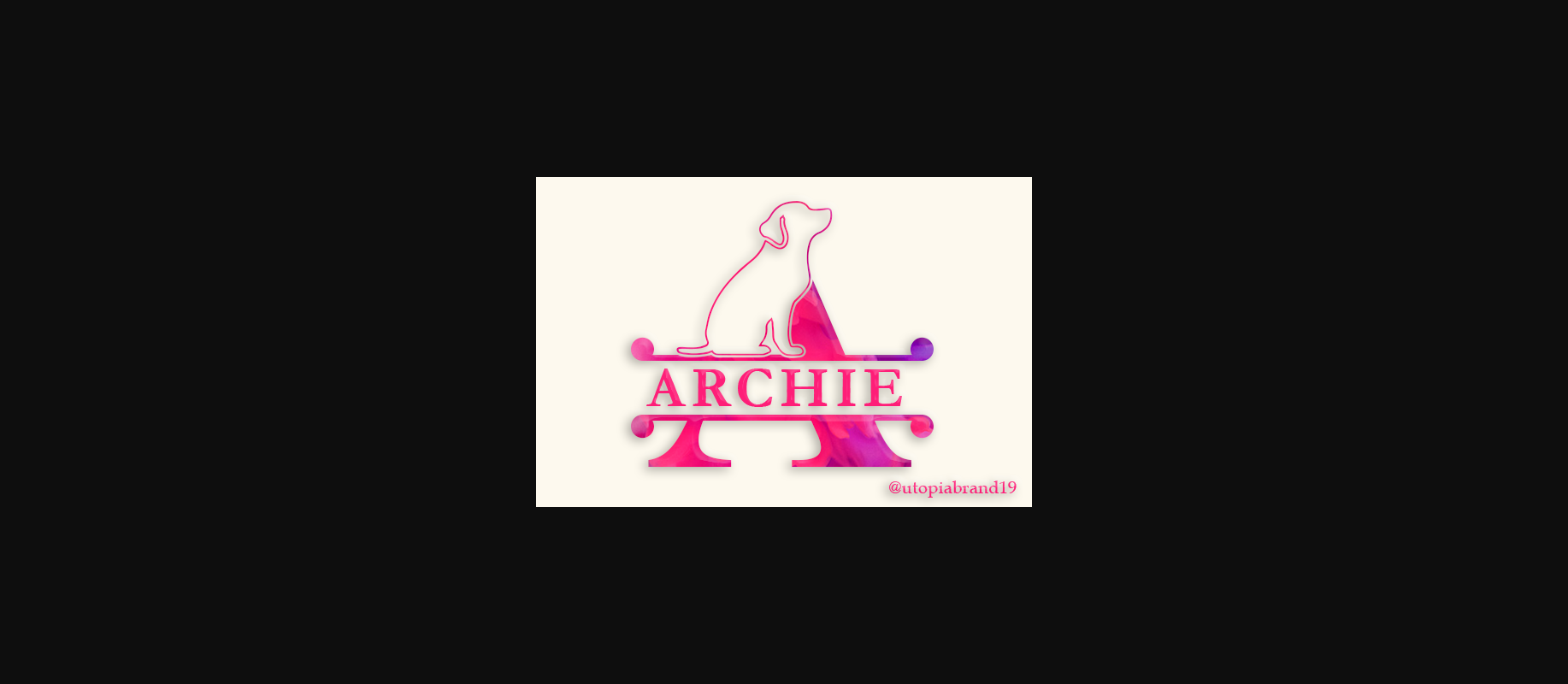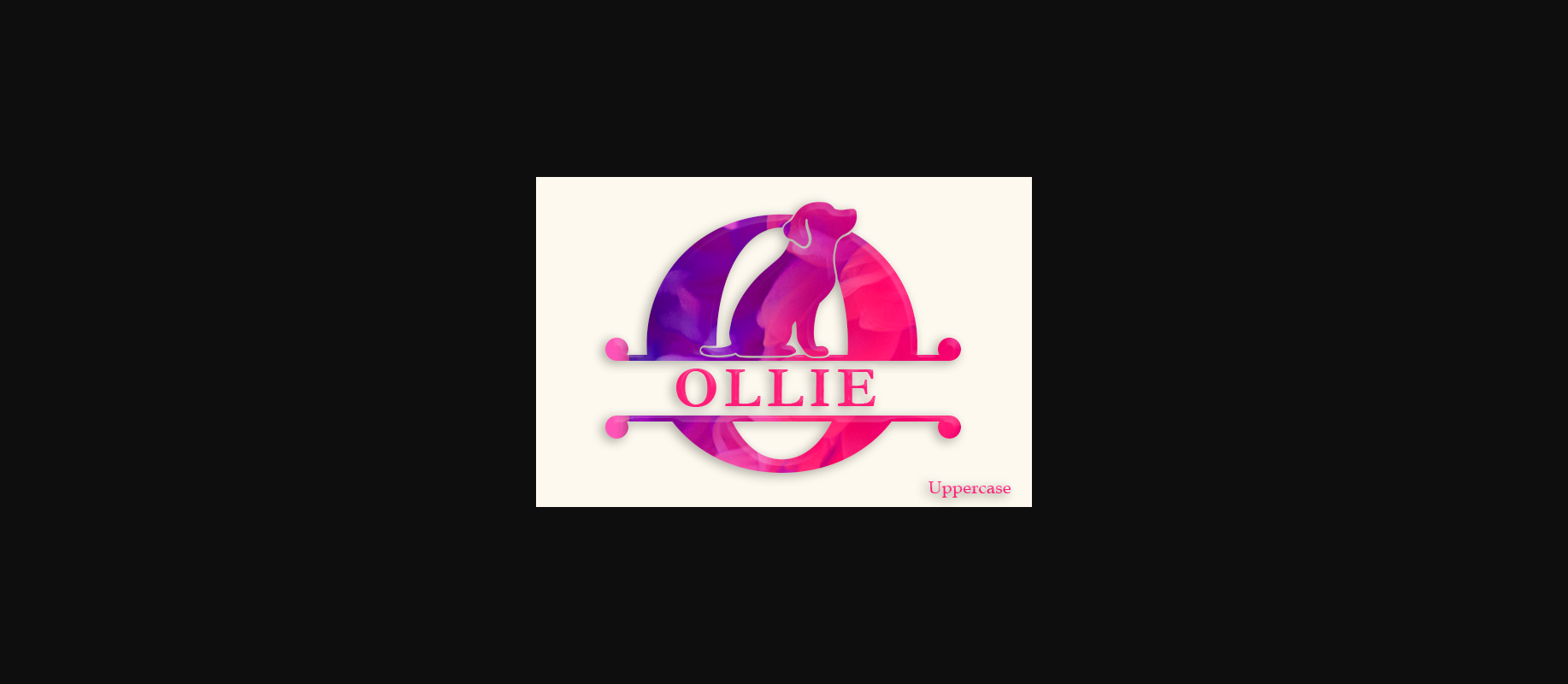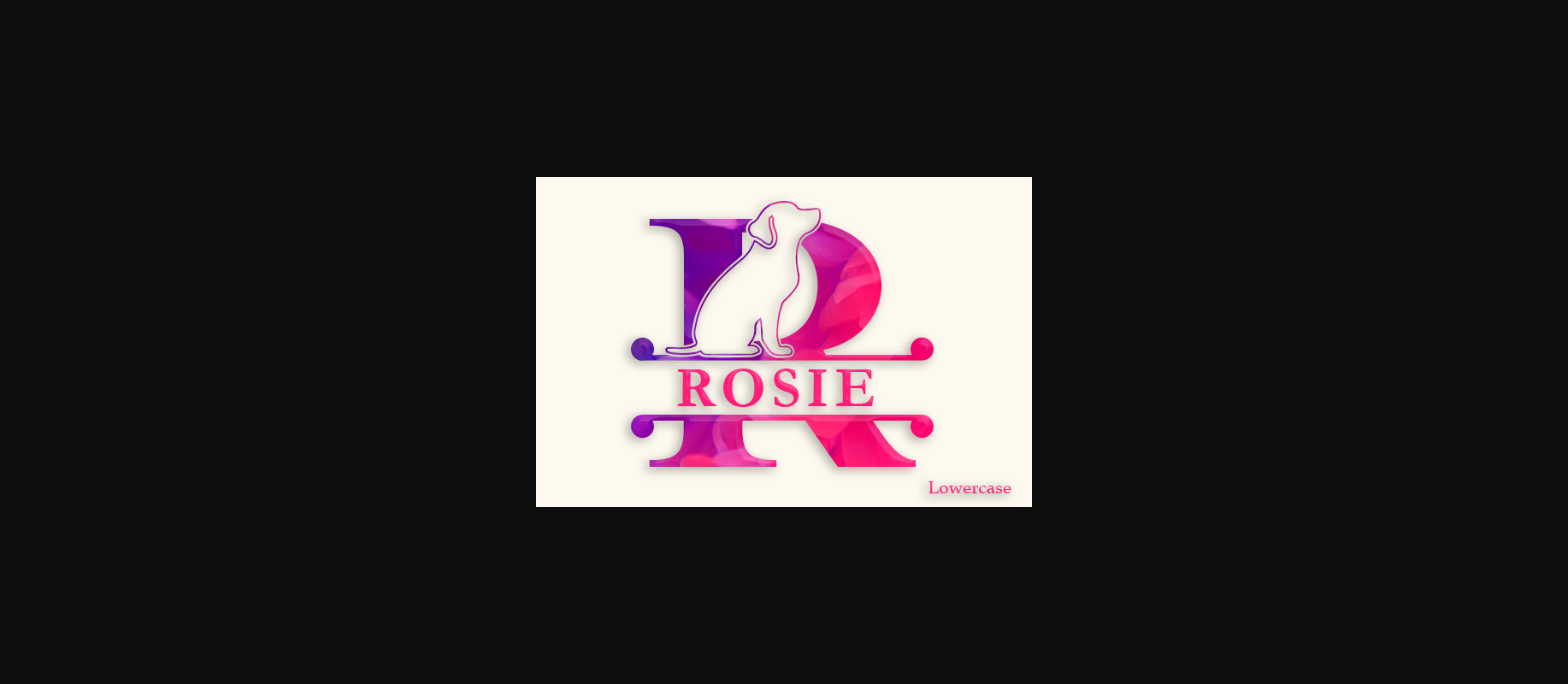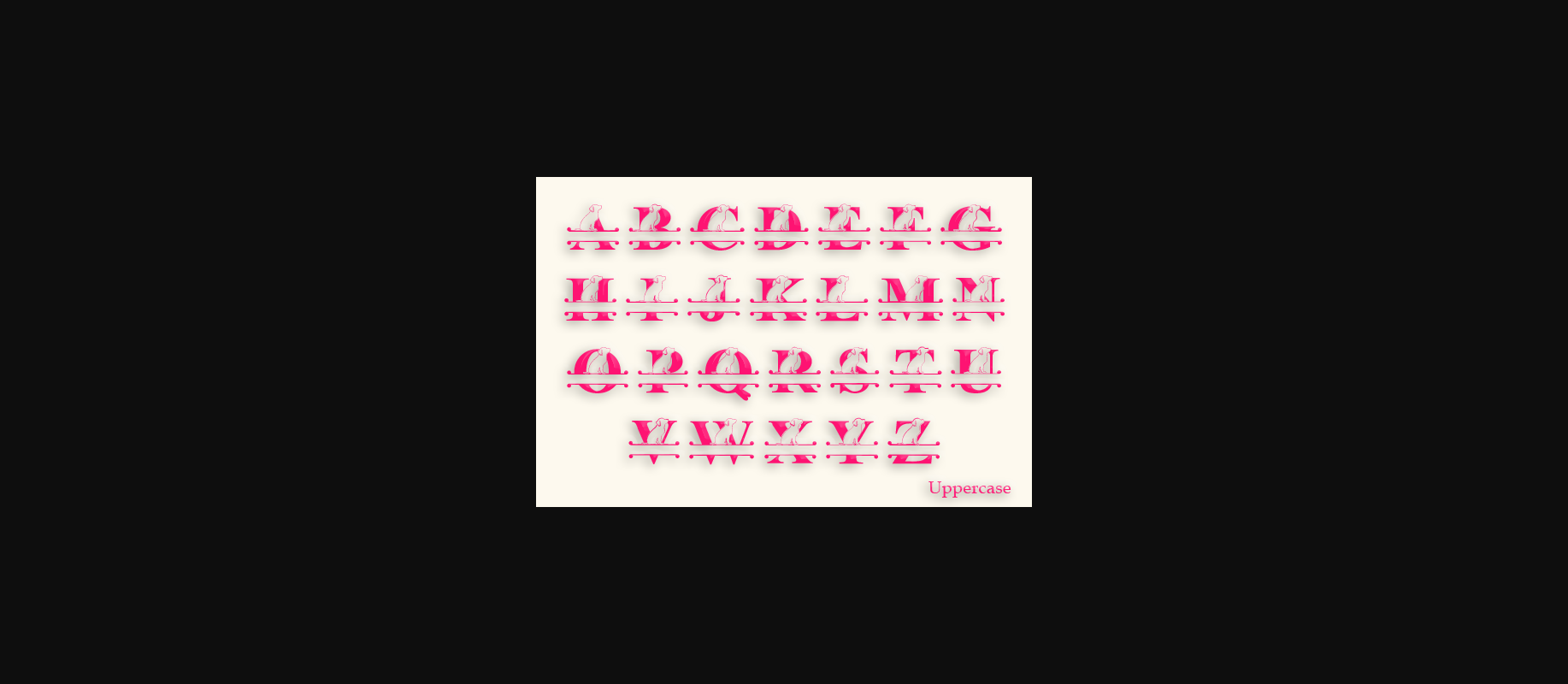
About Archie Monogram Font
Archie Monogram is a cute decorative font, featuring lovely puppies. Fall in love with its authentic feel and use it to create gorgeous wedding invitations, beautiful stationary art, eye-catching social media posts, and cute greeting cards.